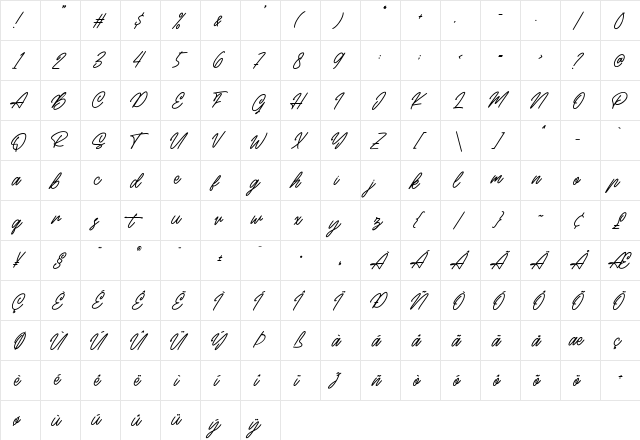
Meethlake Regular
| Foundry | Garisman Studio |
| Designer | Risman Ginarwan |
Design Context for Meethlake Typeface
Meethlake is a composed and adaptable typeface that performs quietly and consistently across a wide range of design contexts.